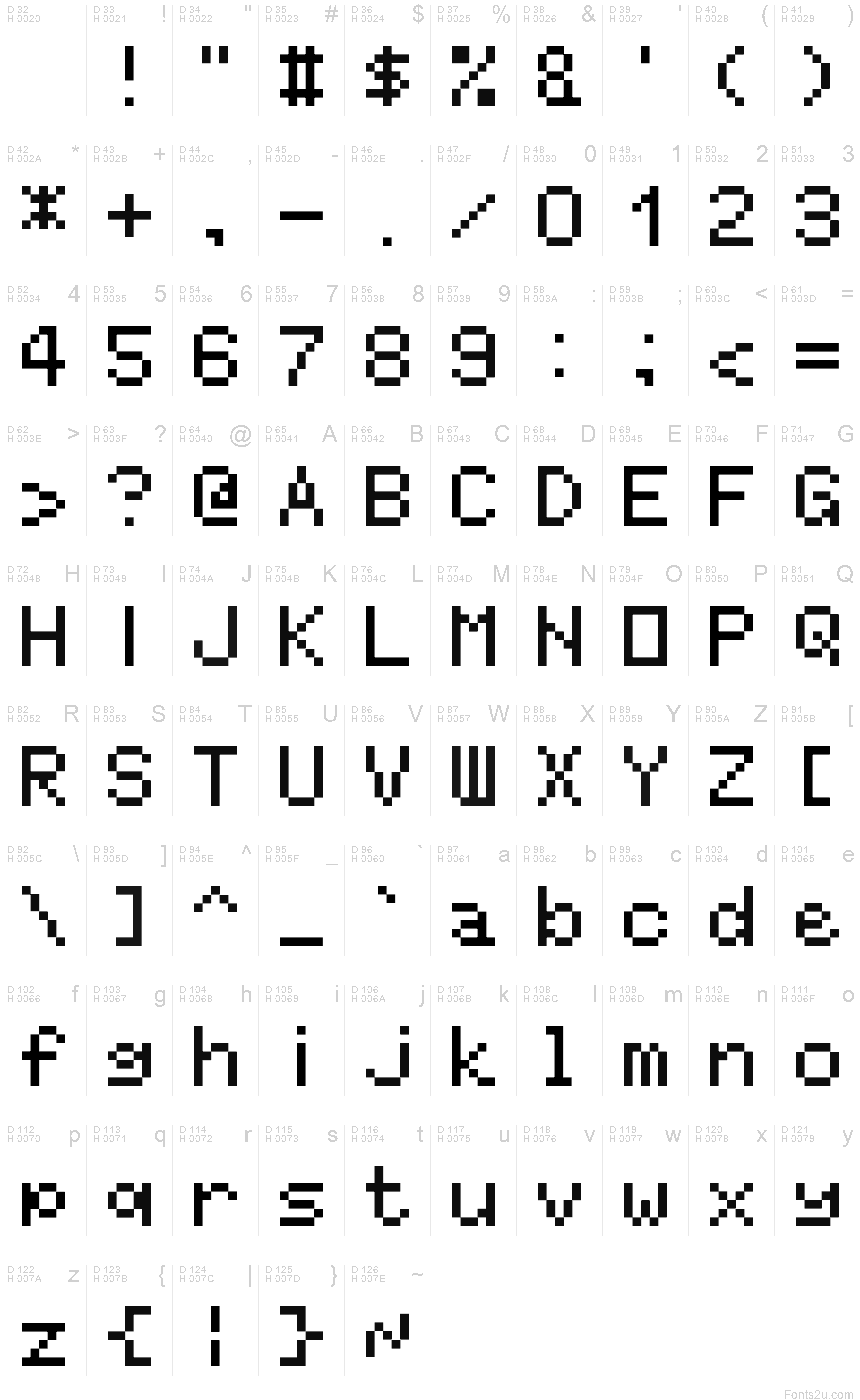
RNTG Larger Regular
A 5x7 (not really) dot matrix font manipulated to look like a typical sans serif font based on appearance of certain digits and letters.
This font can work even on very small files, which according to testing, found out that the size of 5pt is the smallest size: so-called 1:1 scale for this font.
*RNTG is a name for a fictitious standard and because this font was used in its development, it was given the nickname "RNTG".
“RNTG Larger” is based on “Dot Matrix v2.0” by “GuyStruct” (http://fontstruct.com/fontstructors/show/941980/guystruct)